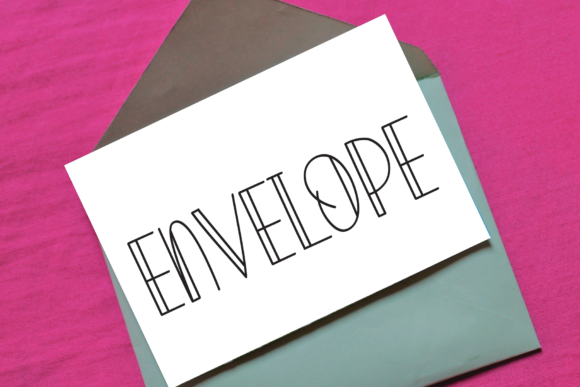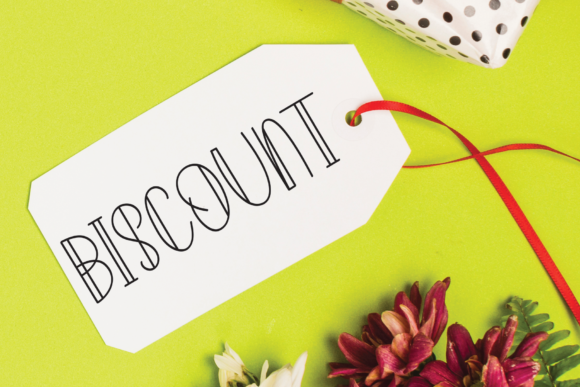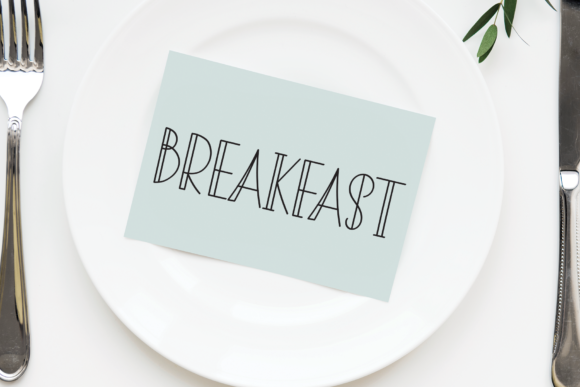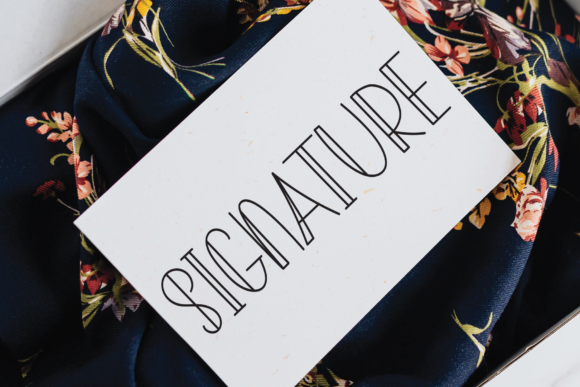
The Sweet Spot: Discovering the Charm of Bestie Font
I still remember the design project that led me to fall in love with the Bestie Font. I was working on a custom wedding invitation for a close friend, and I was struggling to find the perfect font that would capture the sweet and sentimental vibe of the occasion. The client wanted something elegant, yet playful, and I was on a mission to deliver. That’s when I stumbled upon Bestie Font, and it instantly became my go-to choice.
What I Love About Bestie Font
• ✨ Beautiful, elegant lines in each letter that exude a sense of sophistication
• 💕 Perfect for projects that require a touch of whimsy and romance, such as wedding invitations, greeting cards, and social media graphics
• 👍 Highly legible, even at smaller font sizes
While Bestie Font is an amazing choice for many projects, there are a few things to keep in mind:
• 🤔 Limited availability of bold or italic variations, which may limit its use in certain design contexts
• ⚠️ May not be the best choice for body text or long-form content, as its elegant lines may get lost in larger blocks of text
The Designer Inspiration Behind Bestie Font
Bestie Font was created with the intention of providing a beautiful, elegant font for creative projects. The designer wanted to create a font that would capture the sweetness and simplicity of handwritten letters, while still being highly legible and versatile. The result is a font that’s perfect for a wide range of design applications, from wedding invitations to social media graphics.
Q: Is Bestie Font suitable for body text?
A: While Bestie Font is highly legible, it’s not recommended for body text or long-form content. It’s better suited for headlines, titles, and short paragraphs.